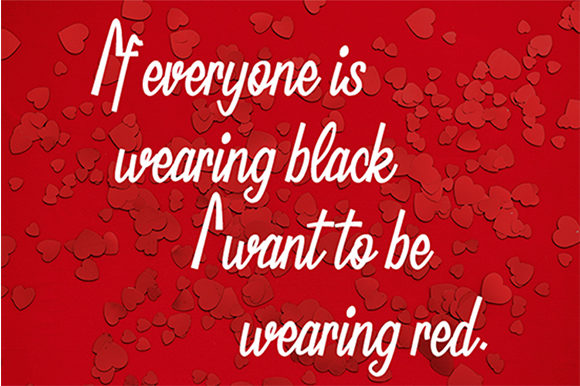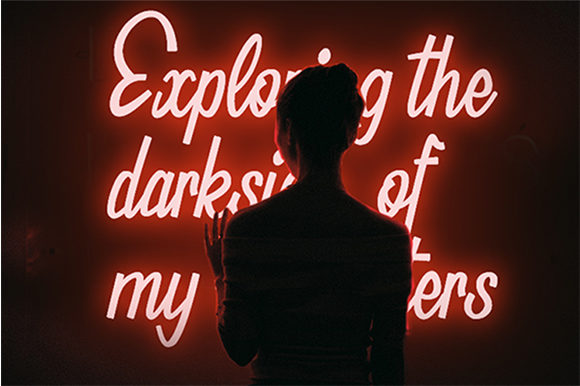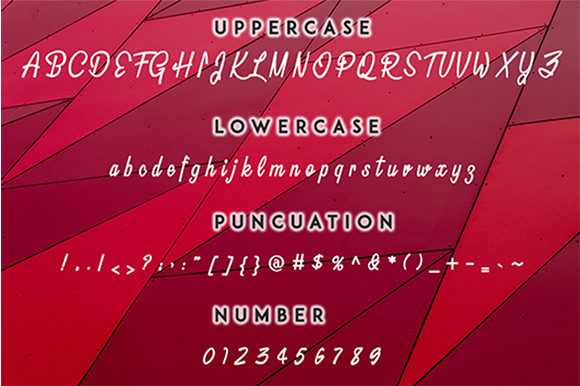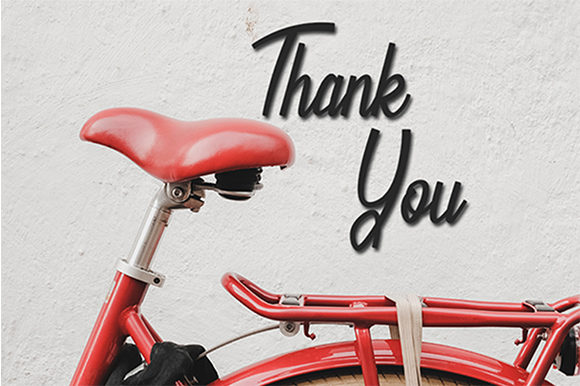
Wrathie Font
About Wrathie Font
Wrathie is a sweet and charming handwritten font with a cool feel. Use it to add a personal touch to any creative idea!